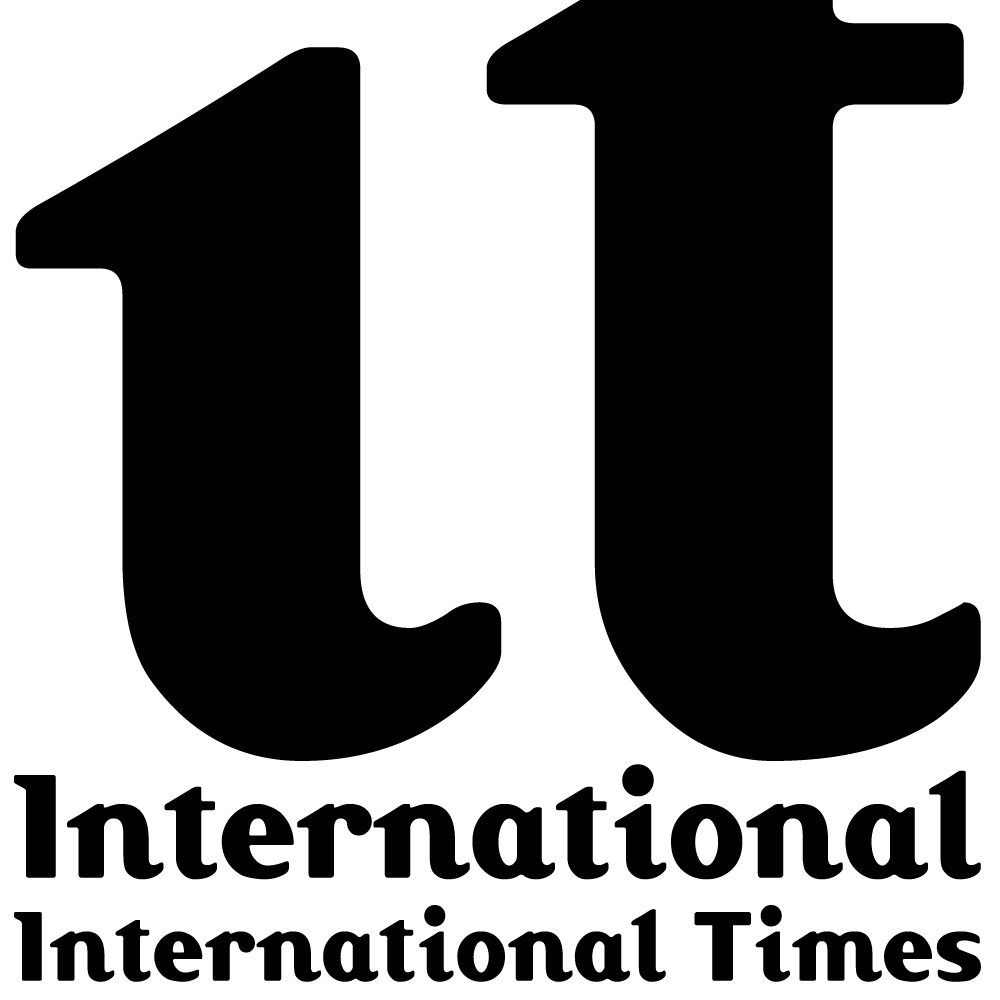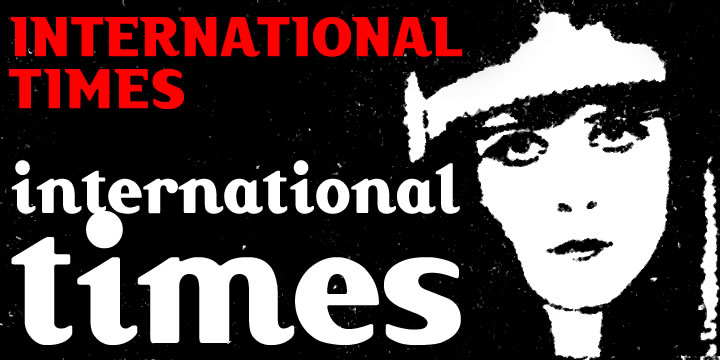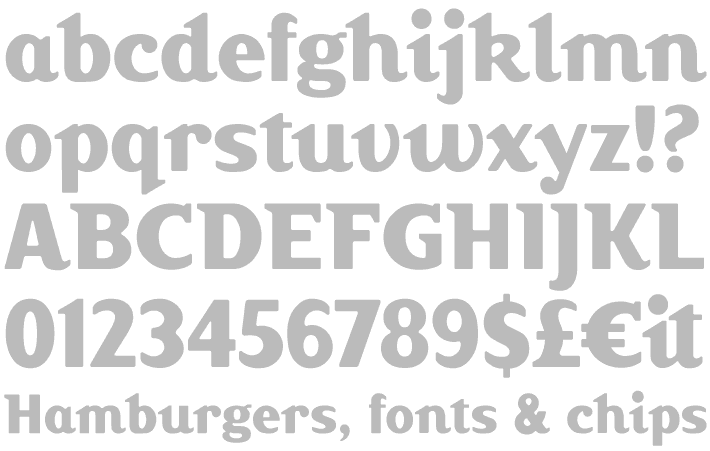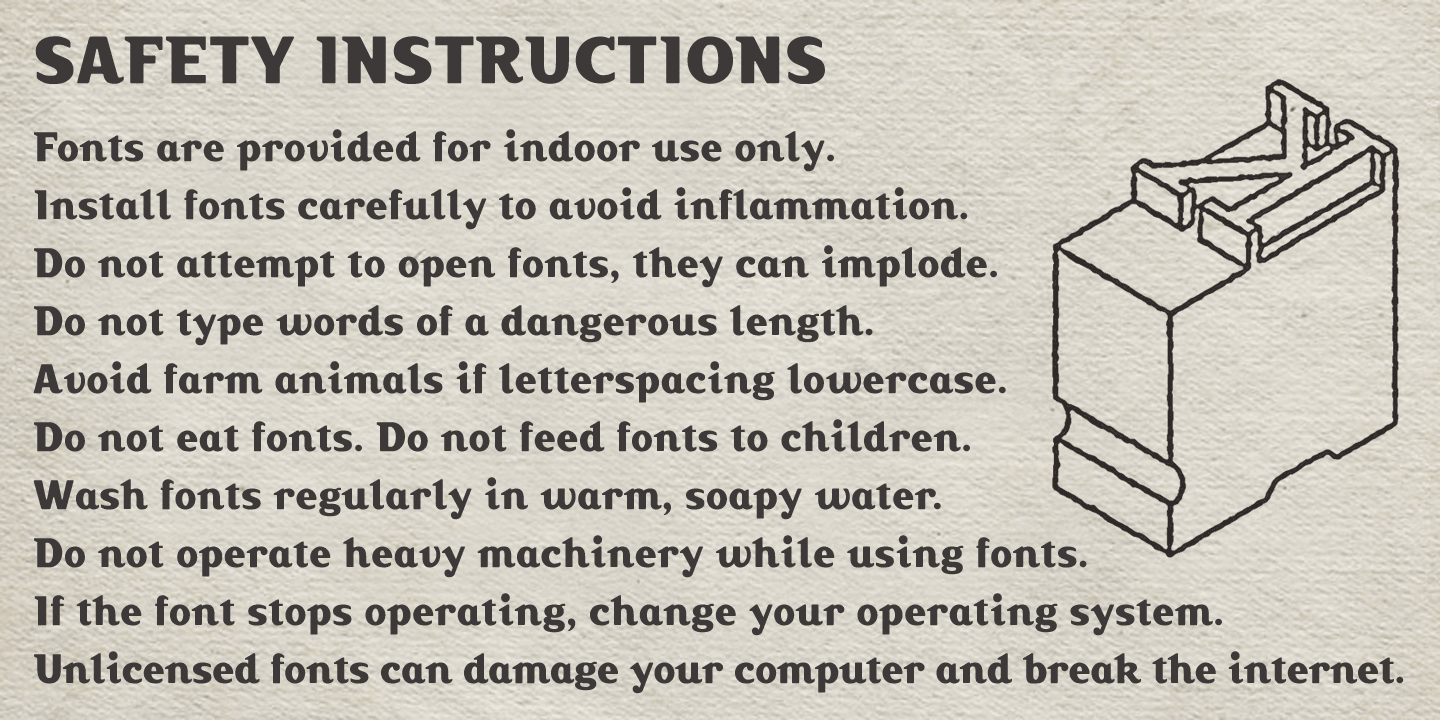
International Times
International Times is a full font based on the two letter masthead of 'it' (pronounced “eye tea”), the International Times, a British underground newspaper/magazine of the late 1960s and early 70s. An unusual upright italic with soft, rounded corners and a contemporary semi-serif upper case.